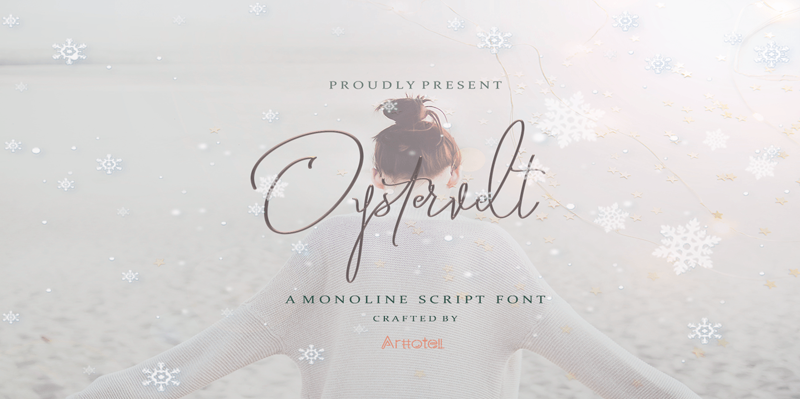
Oystersvelt is a beautiful monoline script font crafted with detail and passion in every signature. Get inspired by its unique charm! Thanks for checking out my store, and feel free to get in touch if you have any questions! arttotell@gmail.com www.creativefabrica.com/product/oystersvelt/ref/235579/ Want to collaborate on branding design please follow me on Behance & Instagram to stay up to date for my latest job, and let's be friends - THANK YOU � |